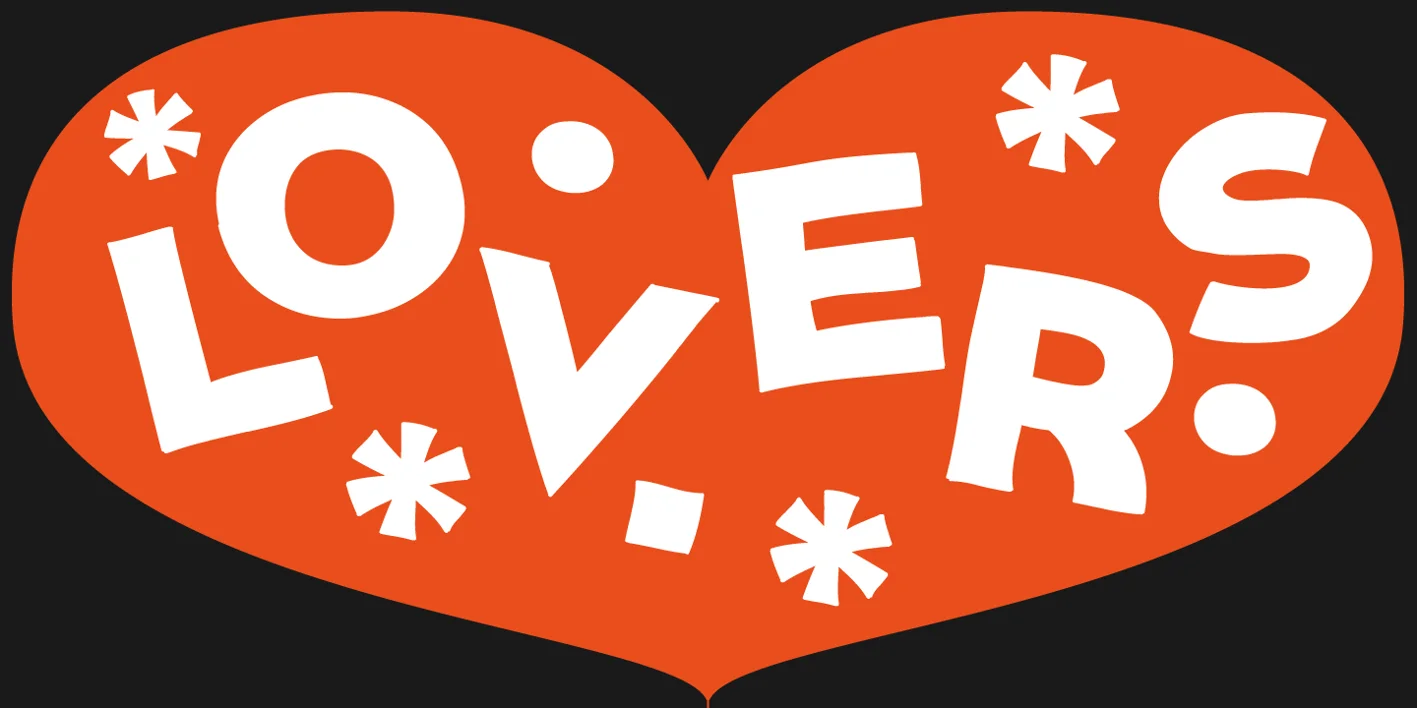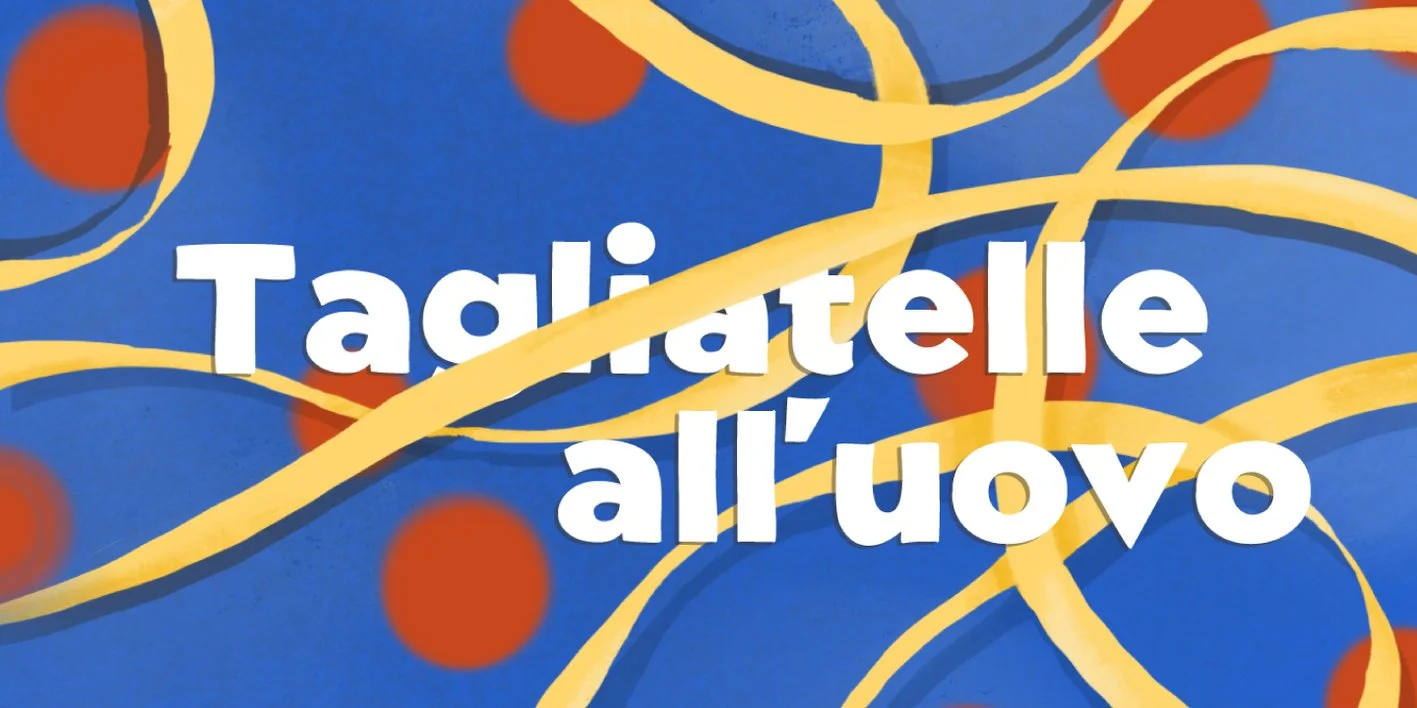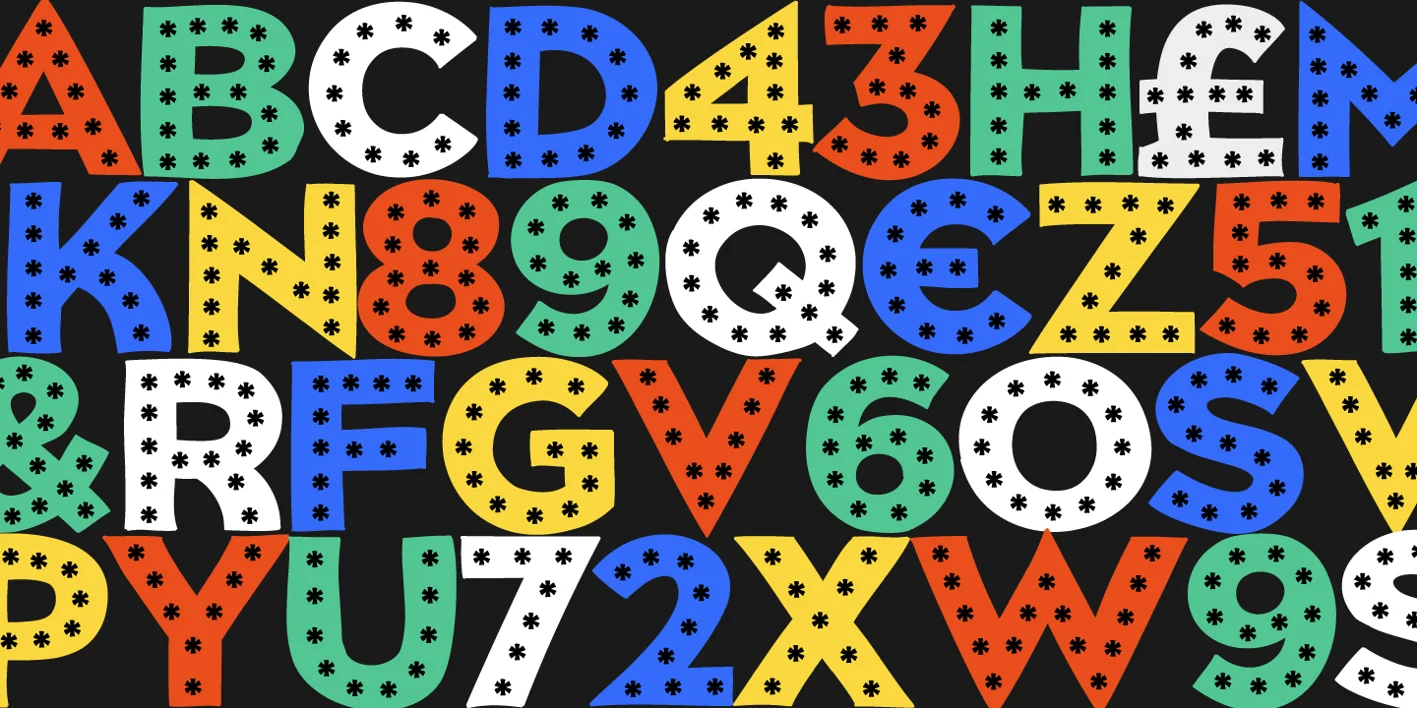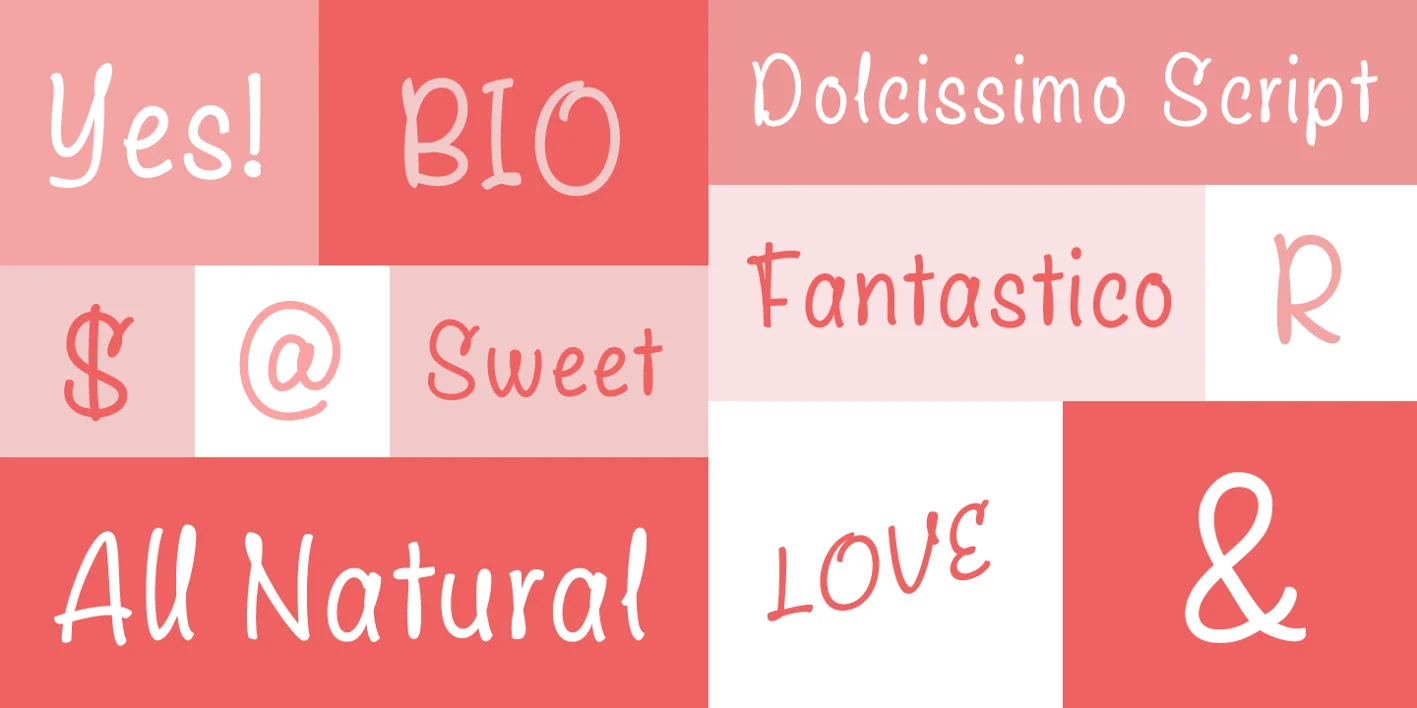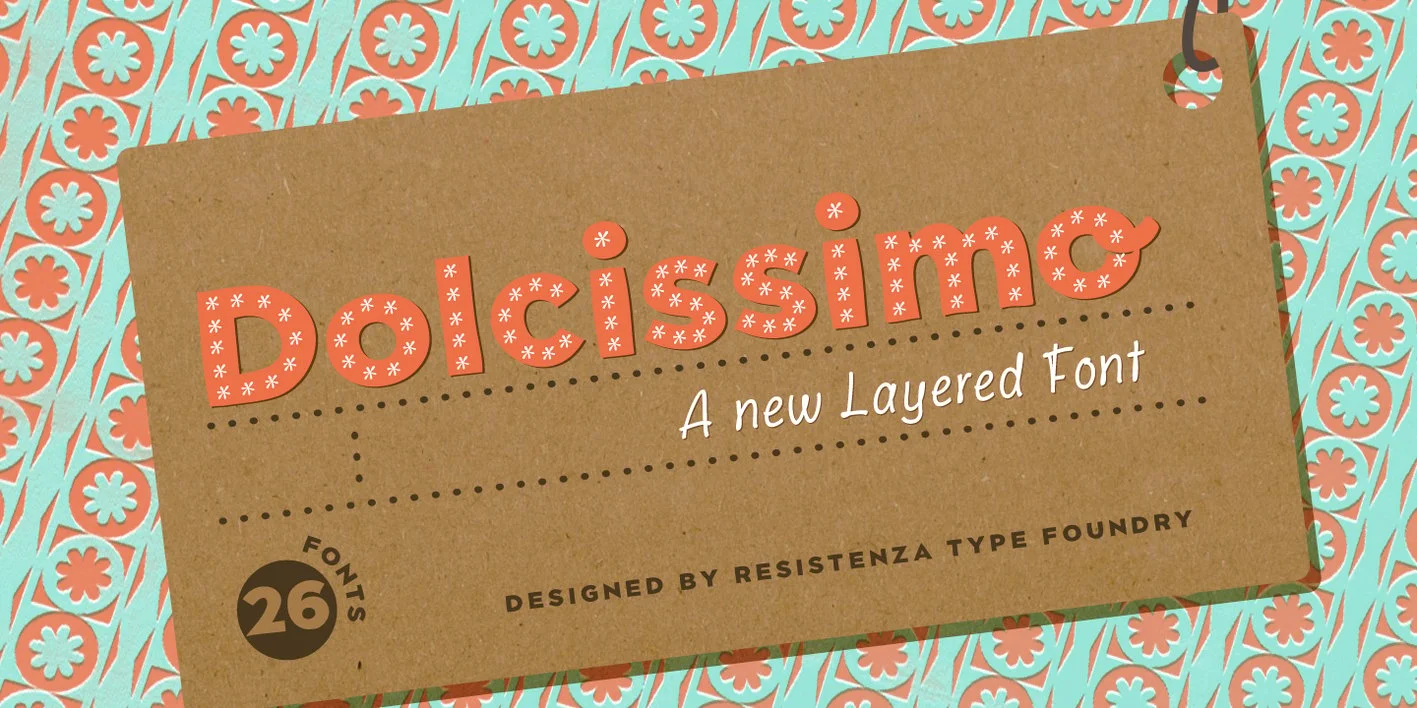
Dolcissimo Font
Typography shapes perception at a subconscious level. Dolcissimo leverages strong typographic hierarchy support to make every composition feel considered. The typeface brings a versatile sensibility to a broad range of creative disciplines, with the kind of restraint that lets content lead that holds up whether the work is print-first or screen-first.
In practice, Dolcissimo proves particularly effective for brand identity systems, signage systems, environmental graphics, product labels, logo design. Designers reaching for it find that the type decisions feel resolved rather than laboured — a useful quality when client timelines are tight.
The range of applications extends to web design, annual reports, advertising campaigns, social media graphics. That breadth is deliberate: the proportions and spacing were stress-tested across a wide range of mock briefs before the typeface was finalised.
The proportions balance x-height, cap height, and ascender length to produce a face that reads confidently at body copy sizes without losing presence at display scale. Sidebearings were derived from visual rhythm testing rather than mathematical calculation alone.
Freelance designers across print and digital disciplines find Dolcissimo a reliable choice for projects that demand both personality and restraint. The design avoids the self-conscious quirkiness that dates quickly, settling instead for considered distinctiveness that holds up over time.